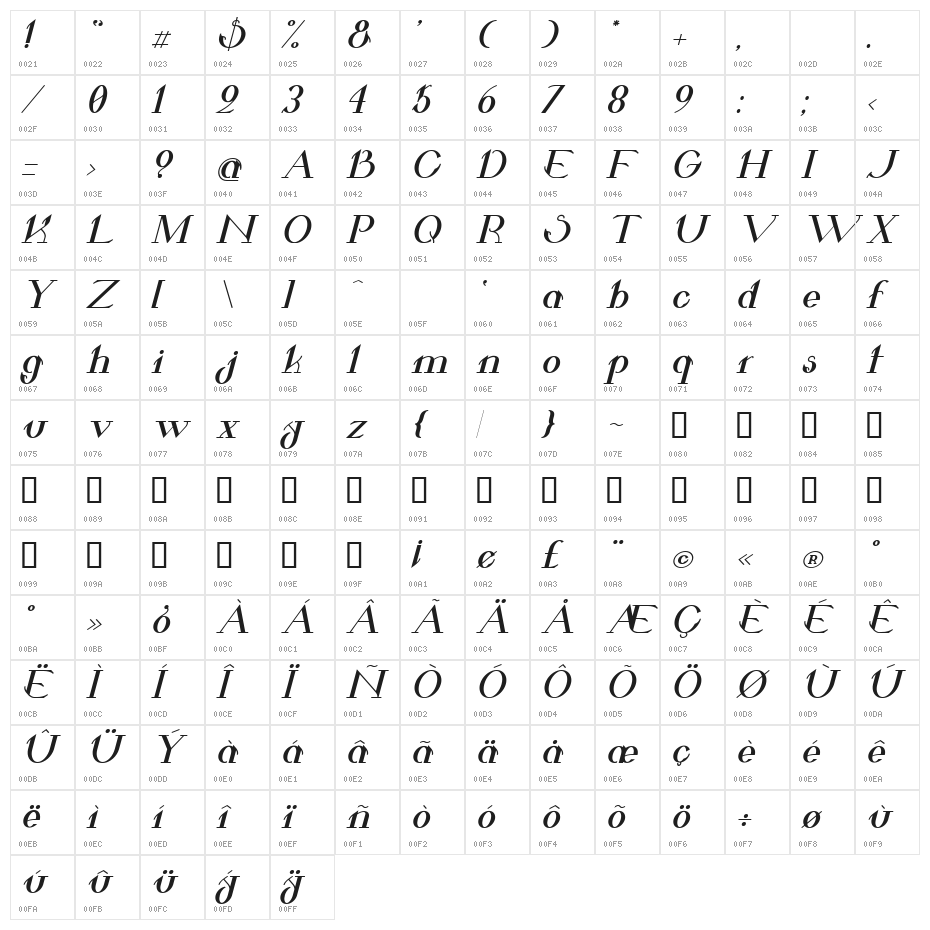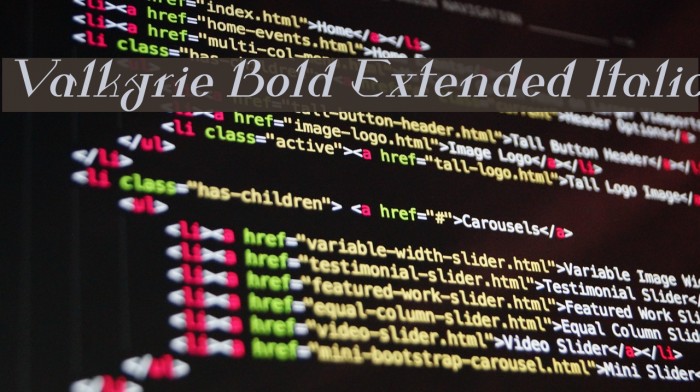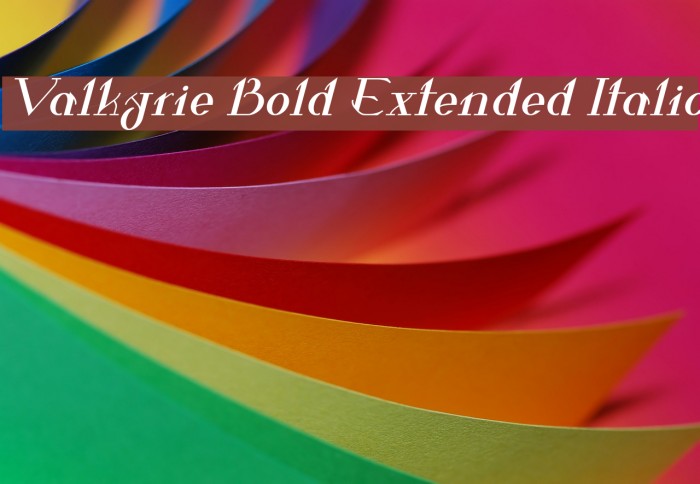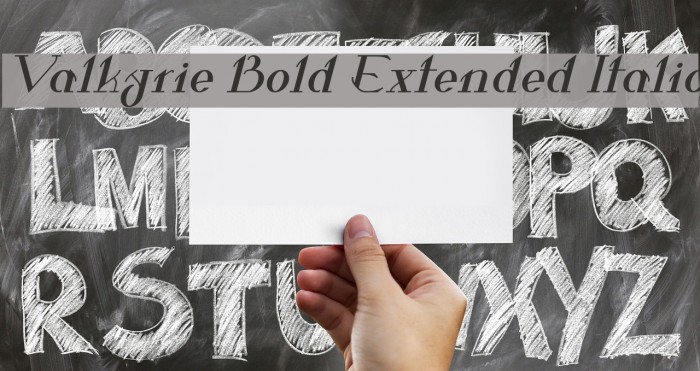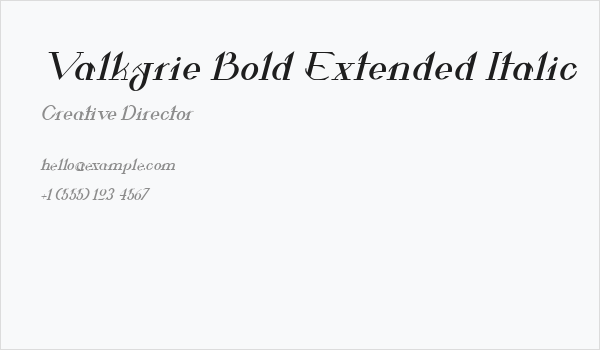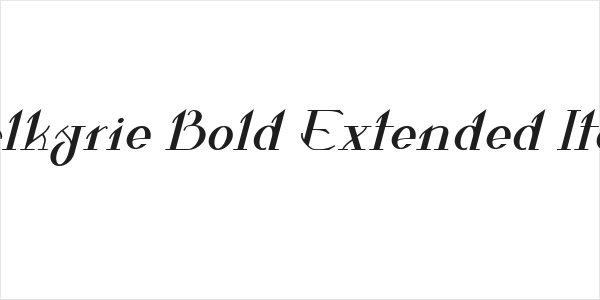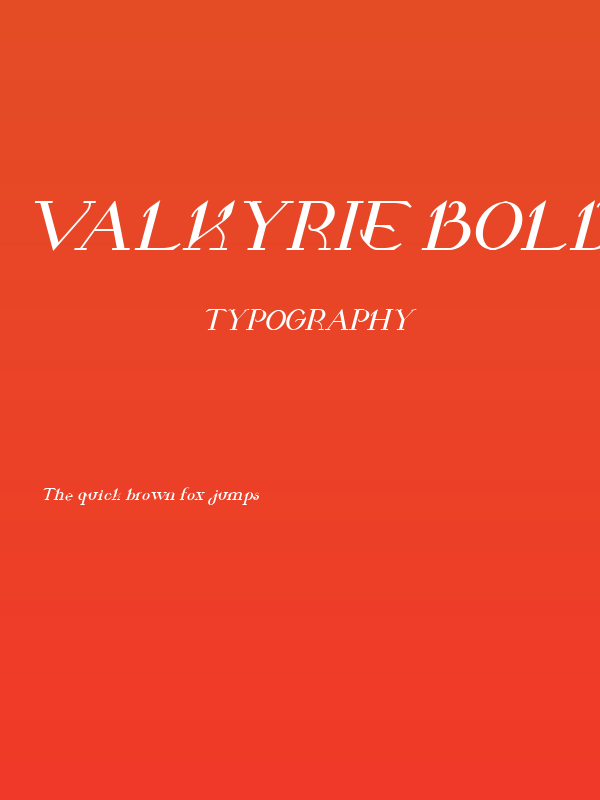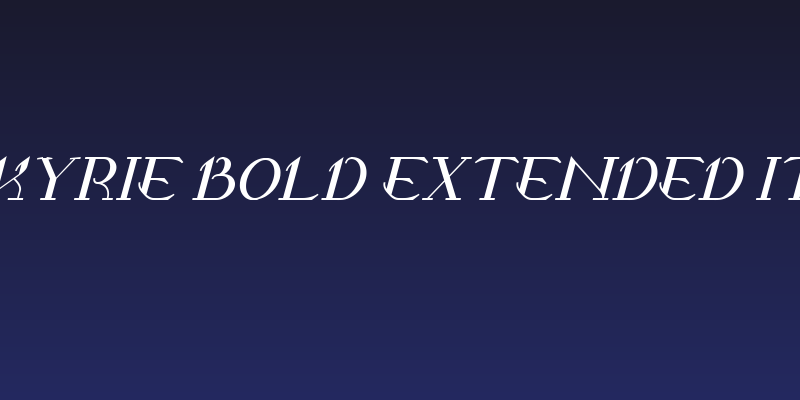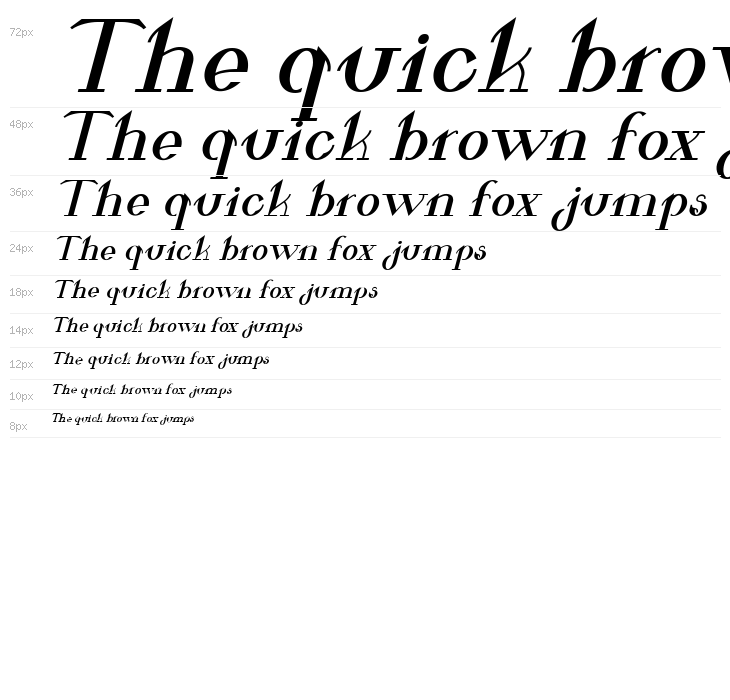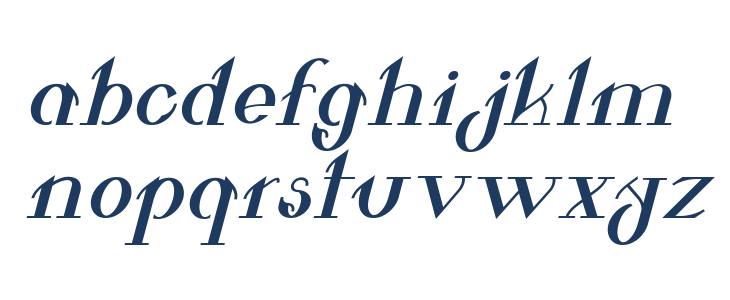
Valkyrie Bold Extended Italic Font
Valkyrie Bold Extended Italic Description
This font exhibits a bold and extended style with a pronounced italic slant, giving it a dynamic and elegant appearance. The characters are well-defined with a high contrast between thick and thin strokes, enhancing readability while maintaining a sophisticated look. The uppercase letters are tall and commanding, while the lowercase letters maintain a consistent flow, adding to the font's overall harmony. The numerals are distinct and align well with the alphabet, ensuring clarity in numerical data. Special characters are crafted with attention to detail, making them suitable for various design needs.
WidthExpanded
Overall StyleElegant
Use CaseHeadlines, Logos, Invitations
Proposed ProjectsIdeal for luxury branding, editorial design, fashion magazines, and elegant invitations.